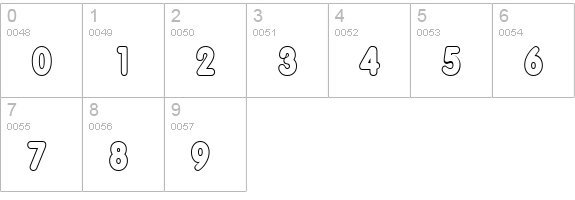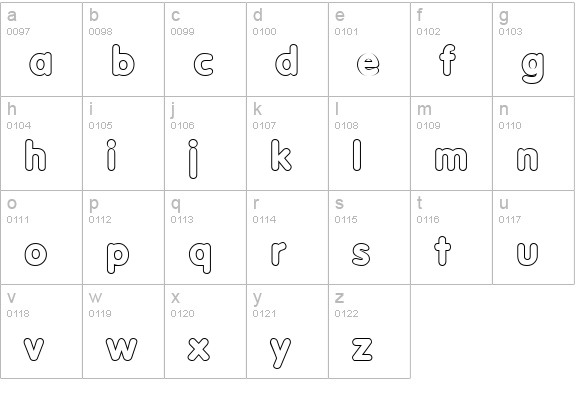
Vagabond Heavy Outline is a heavy, high-impact variant in the Vagabond typeface family \xE2\x80\x94 well suited to high-impact headlines, posters, and display advertising.
Vagabond Heavy Outline font is a stunning display typeface that captivates with its bold, edgy lines and striking presence. With its unique outline style, this font adds a touch of modernity and creativity to any design project. Perfect for headlines, posters, logos, and other eye-catching visuals, Vagabond Heavy Outline font commands attention and makes a powerful statement. Its thick strokes and refined contours create a strong visual impact that is both captivating and memorable. What makes Vagabond Heavy Outline font even more remarkable is that it is freely available to download at FontsMarket.com. Whether you are a graphic designer, a creative professional, or simply someone who appreciates high-quality fonts, this is an opportunity not to be missed. With Vagabond Heavy Outline font, you have the freedom to unleash your creativity and elevate your designs to new heights. Its versatility allows it to be used in a wide range of projects, from branding and packaging to social media graphics and website designs. Designed with meticulous attention to detail and crafted with precision, Vagabond Heavy Outline font exudes confidence and sophistication. Its bold and distinctive nature is sure to leave a lasting impression on your audience. So why wait? Embrace the freedom of expression and download Vagabond Heavy Outline font today at FontsMarket.com. Let your designs break free from the ordinary and make a bold statement that is uniquely yours.